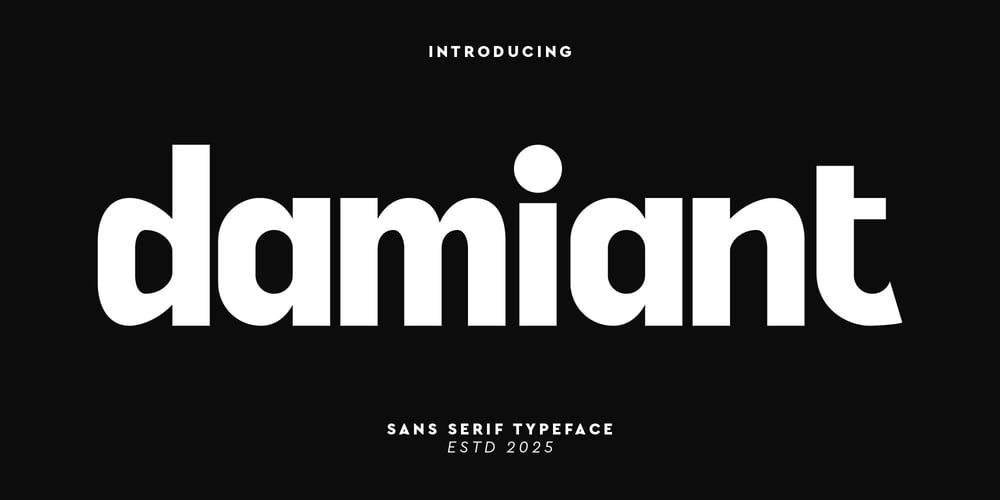
Damiant Font Family was designed by Iwan Alwan and published by Artiveko. Damiant contains 2 styles and family package options. Damiant is a creative sans serif font designed with a modern and stylish edge. Its sleek letterforms and balanced proportions make it perfect for branding, logos, packaging, and editorial design. With multilingual support, ligatures, and alternates, Damiant offers versatility and uniqueness, making it an excellent choice for projects that require a contemporary and professional look with a creative touch.